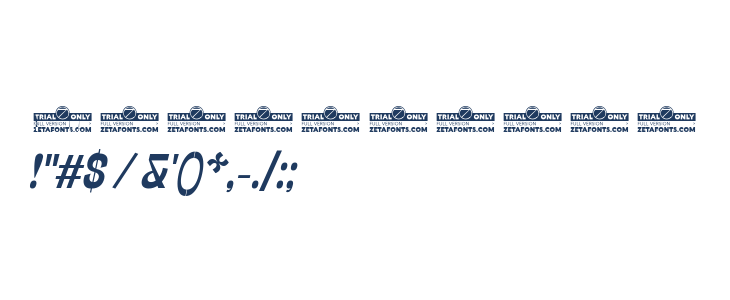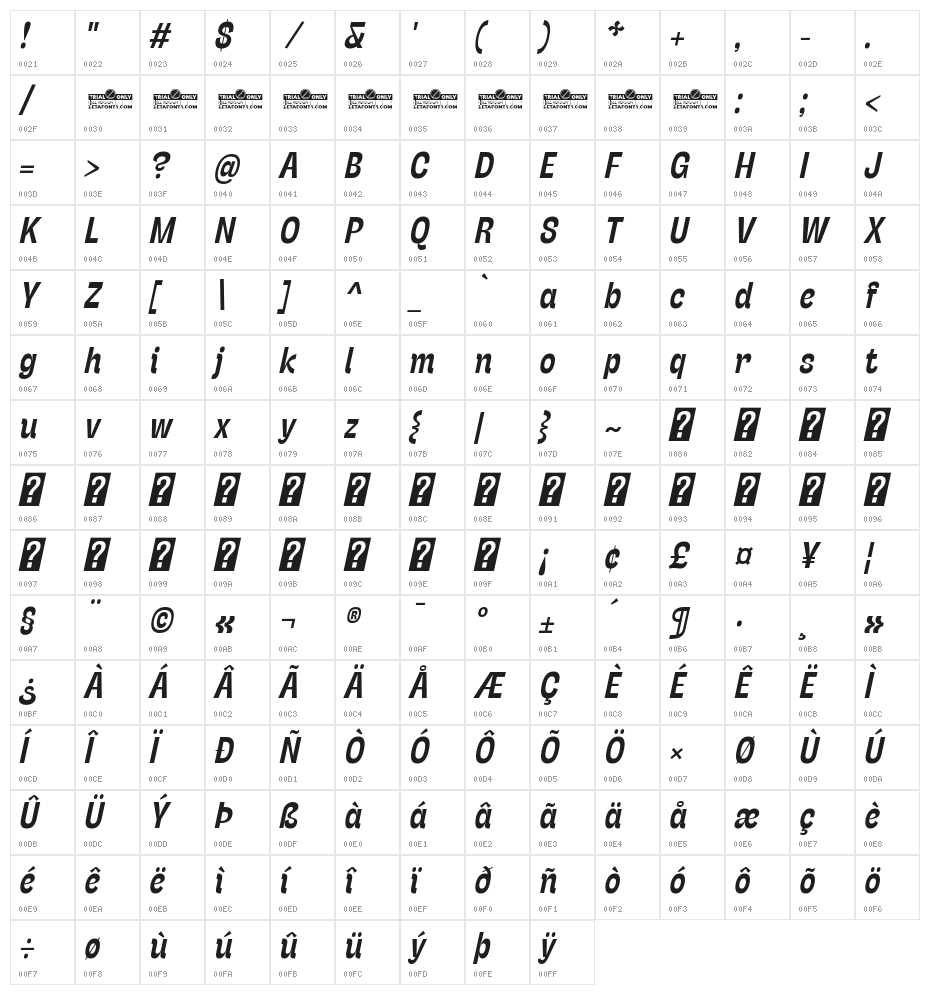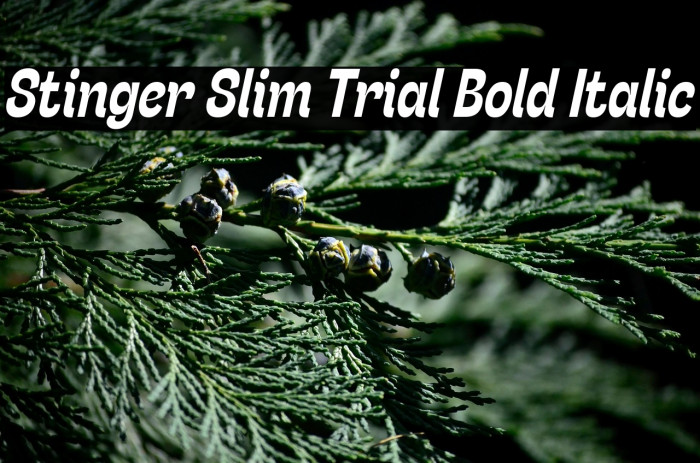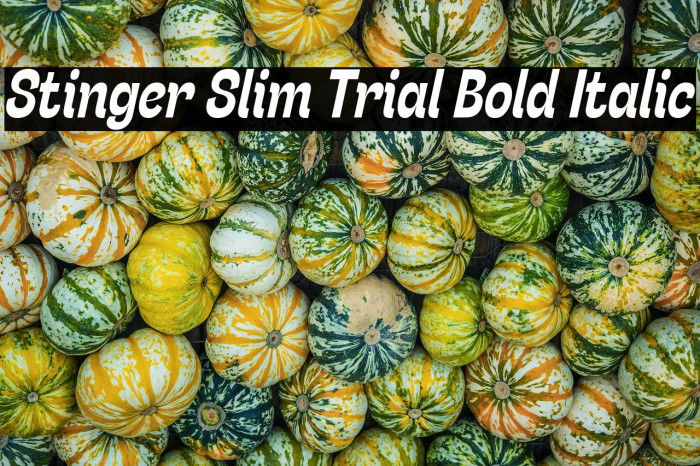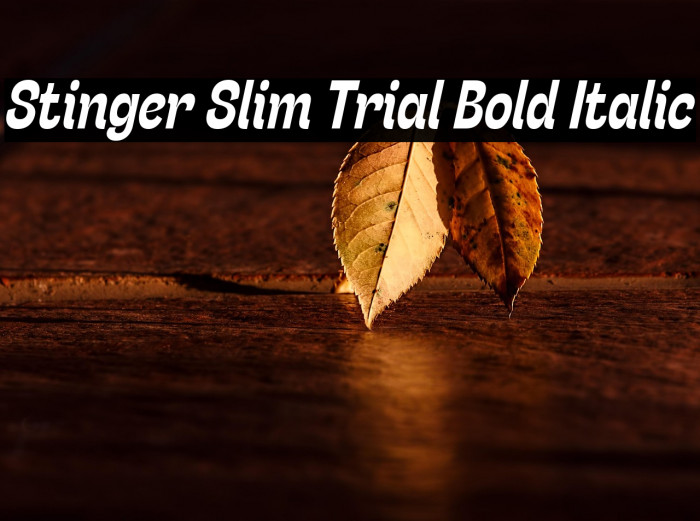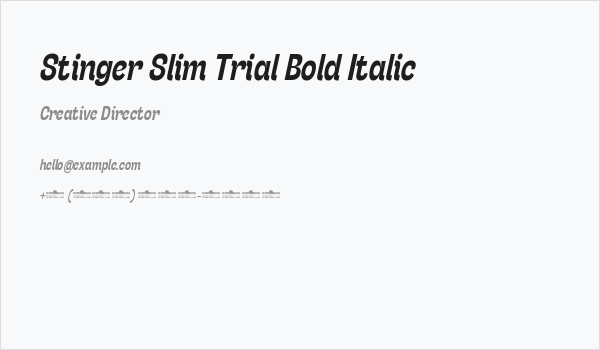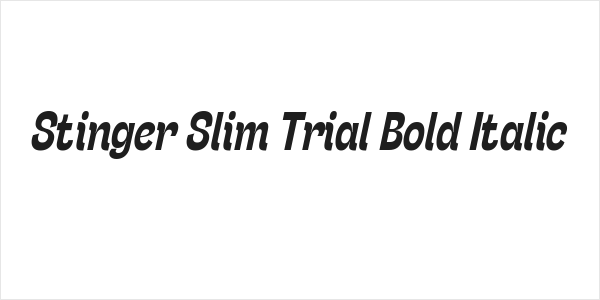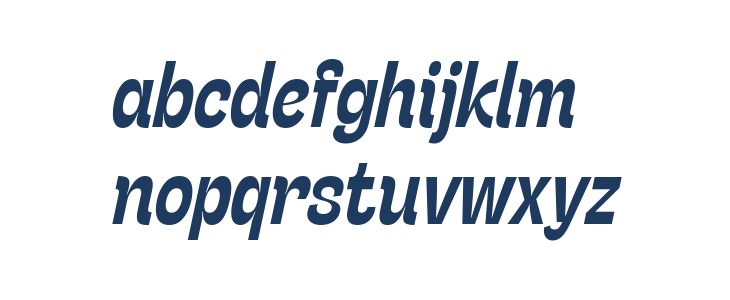
Stinger Slim Trial Bold Italic Font
Stinger Slim Trial Bold Italic Description
This font features a bold and italic style, characterized by its strong and dynamic appearance. The letters are slightly slanted, adding a sense of movement and energy. The strokes are thick and consistent, providing a robust and impactful look. The uppercase and lowercase letters maintain a uniform style, ensuring readability and cohesion. The numerals and special characters are designed to match the boldness and slant of the alphabet, making them suitable for various design applications.
| Proposed Projects | Ideal for branding, headlines, posters, and any design requiring a strong visual impact. |